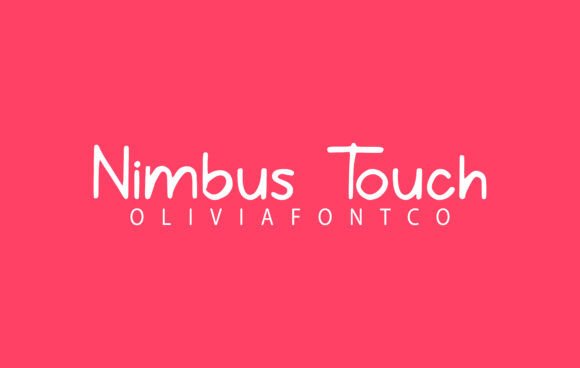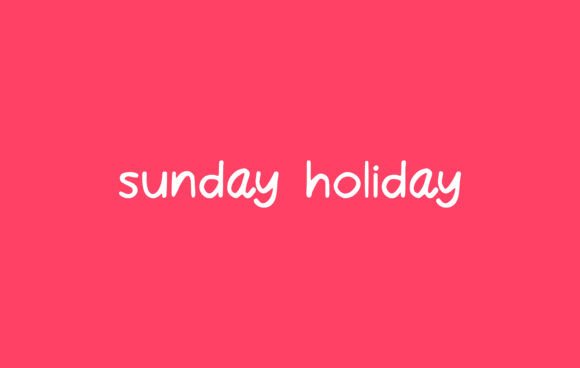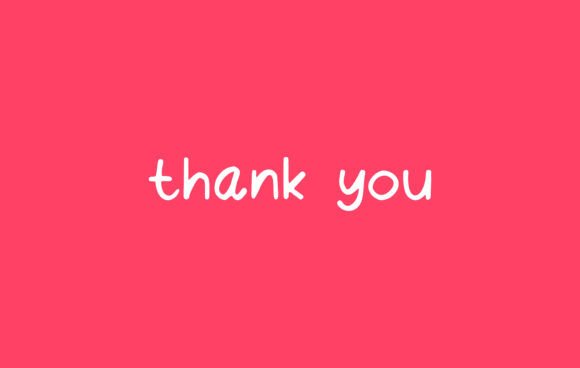
Nimbus Touch Font
About the Nimbus Touch Font
Get ready to be inspired by Nimbus Touch Font, a fresh and dynamic typeface for modern creators. Nimbus Touch font is an authentic handwritten font with a romantic touch. Expertly designed to be a true favorite, this font has the potential to take your creative ideas to the highest level
Its romantic, handwritten style makes Nimbus Touch ideal for projects requiring a personal touch, such as wedding invitations, greeting cards, and branding for boutiques or artisanal products. Headlines and short text blocks also benefit from its legibility and charm. However, its informal nature makes it less suitable for body text, particularly in long paragraphs or UI elements where readability is paramount.
For optimal impact, pair Nimbus Touch with a clean sans-serif like Open Sans for a contemporary contrast, or a classic serif such as Garamond for a more traditional feel. A simple geometric sans-serif could also create a visually interesting juxtaposition.
The overall personality of Nimbus Touch is undeniably warm and inviting, conveying a sense of handcrafted authenticity and gentle elegance.
Nimbus Touch Font Usage Examples
Nimbus Touch Font Example